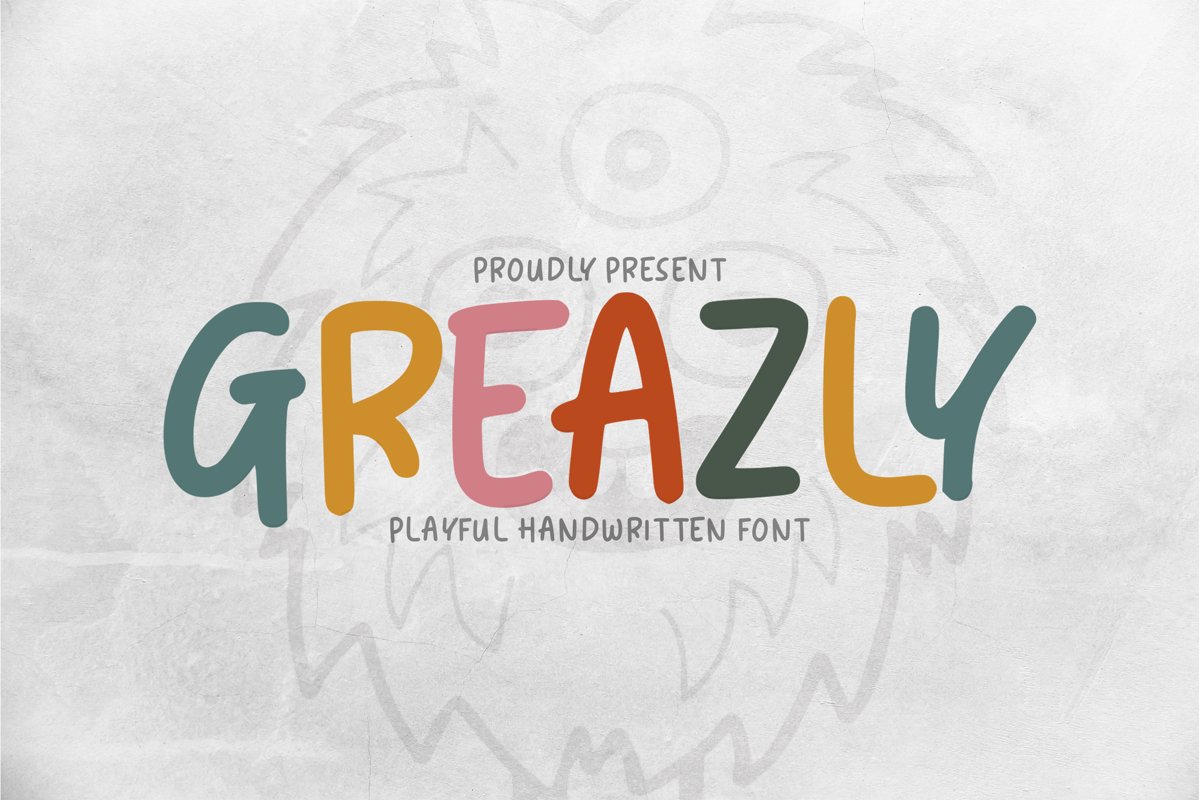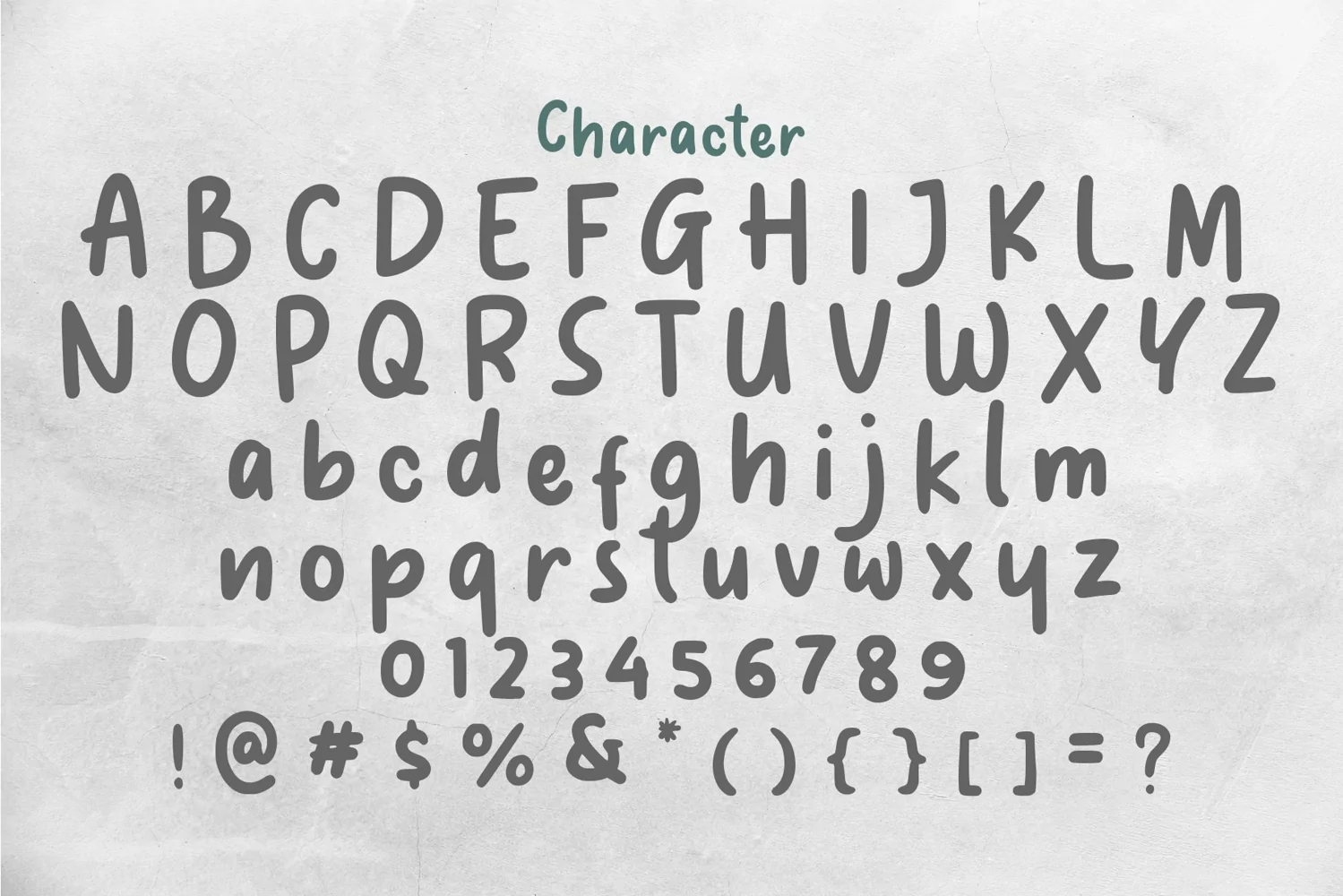
Greazly is a playful display typeface. Perfect for display, quotes, posters, business card, logo, logotype, branding, print, t-shirt, mug, packaging, merchandise, and many more.